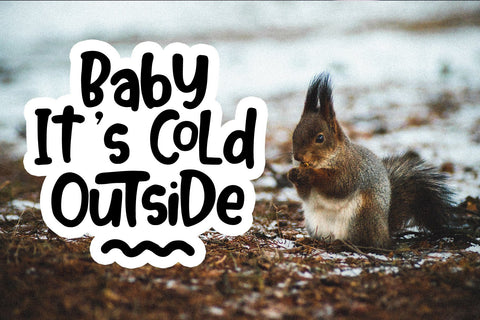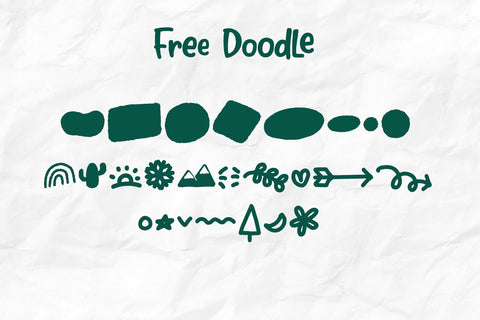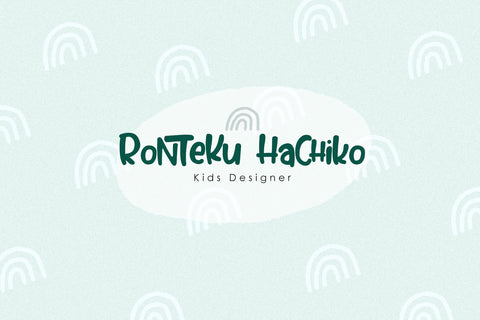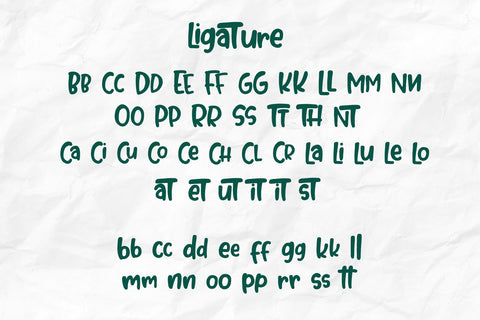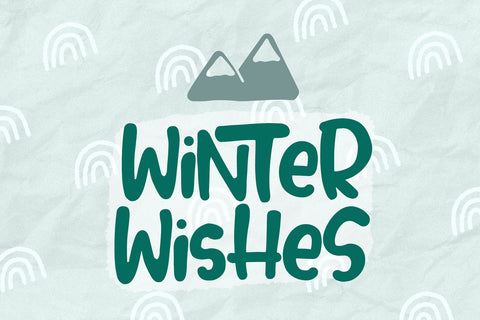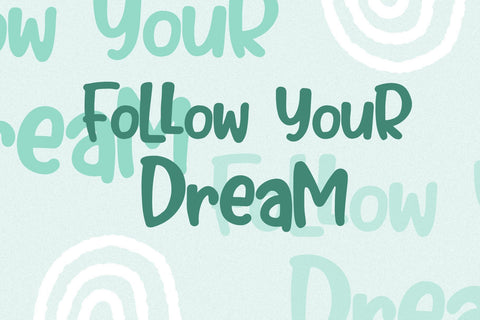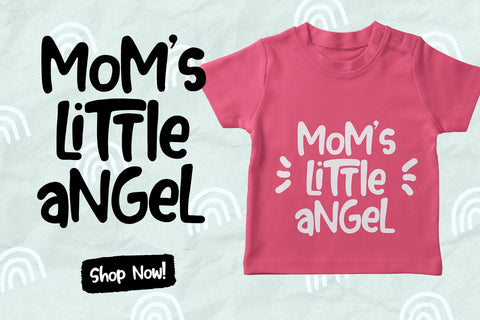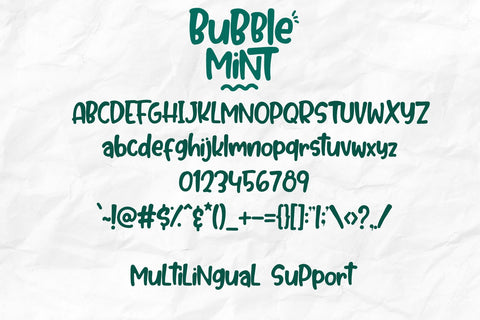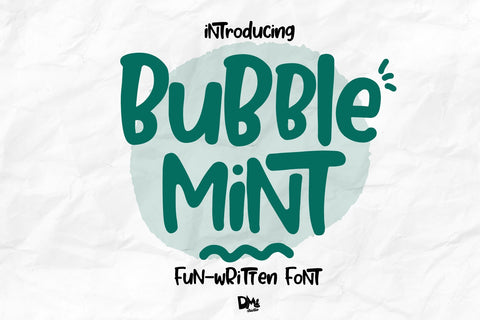
Bubble Mint - Fun written Font
Introducing : Bubble Mint Font
Bubble Mint the Fun-written Font. It's cute, bubbly, fun, quirky but versatile for any kind of usage.
Use it for making birthday card, social media post, packaging and logo of your product, t-shirt design, kids stuff, promotion stuff, and much more!
- Uppercase, lowercase, numeric, symbols
- Uppercase & Lowercase Ligatures (Combine the uppercase & lowercase letter for uppercase ligature)
- Free 26 Handdrawn Doodles